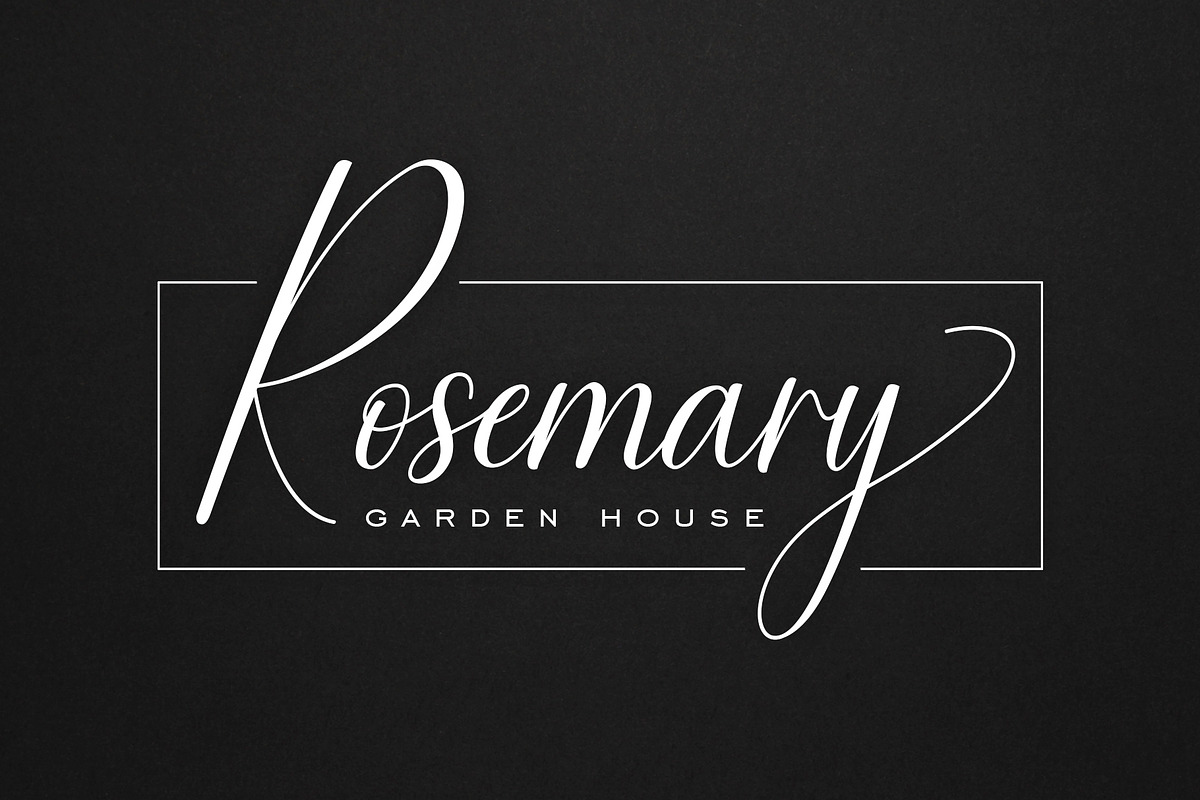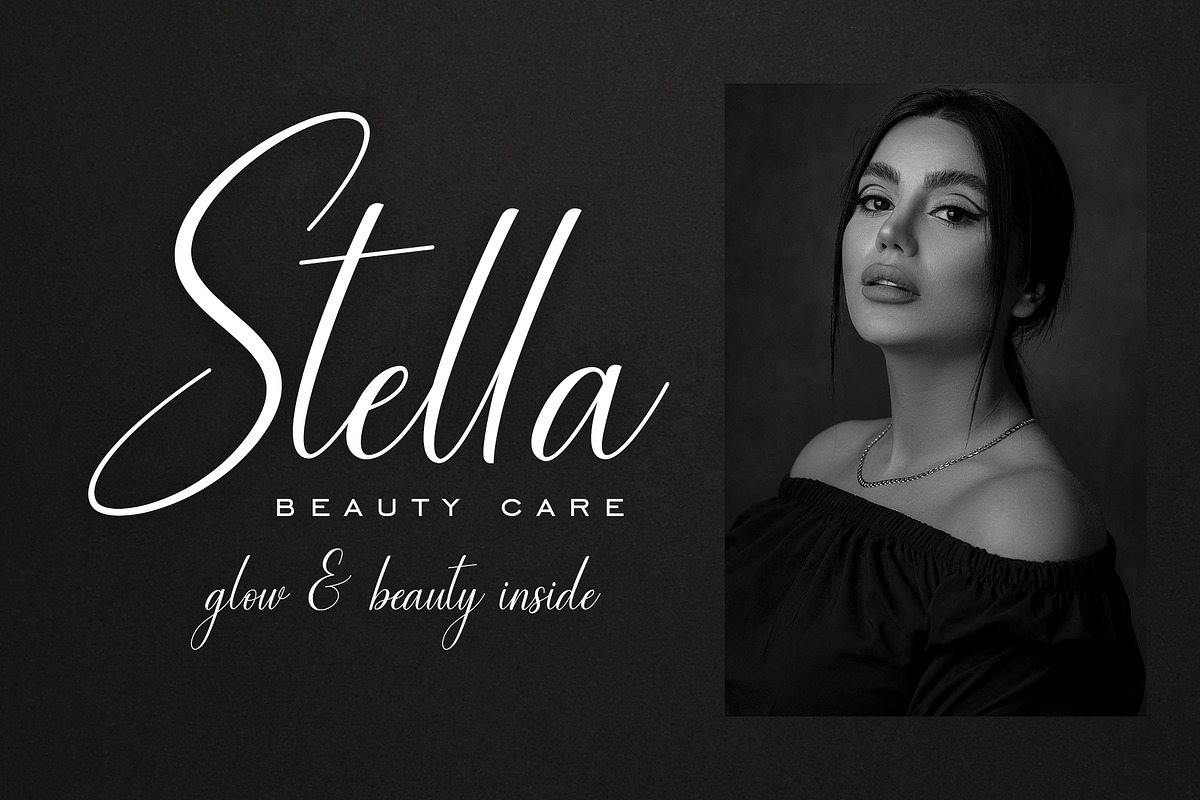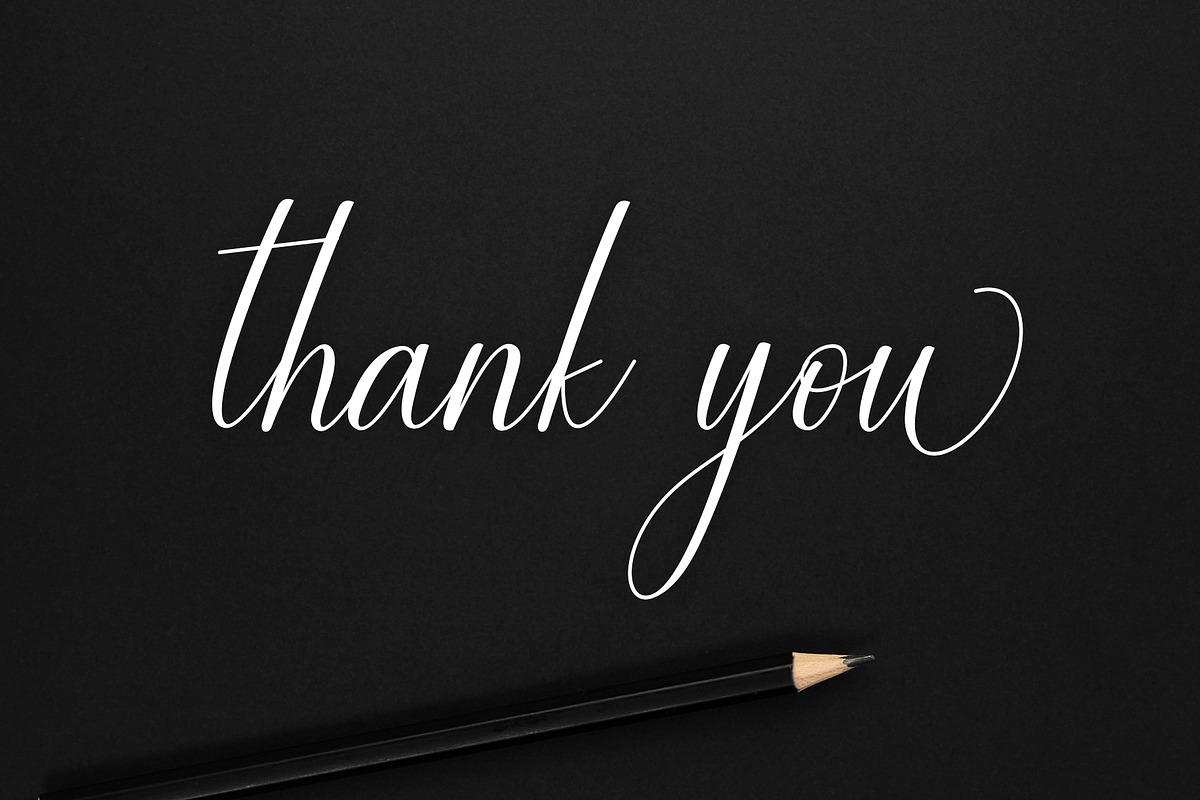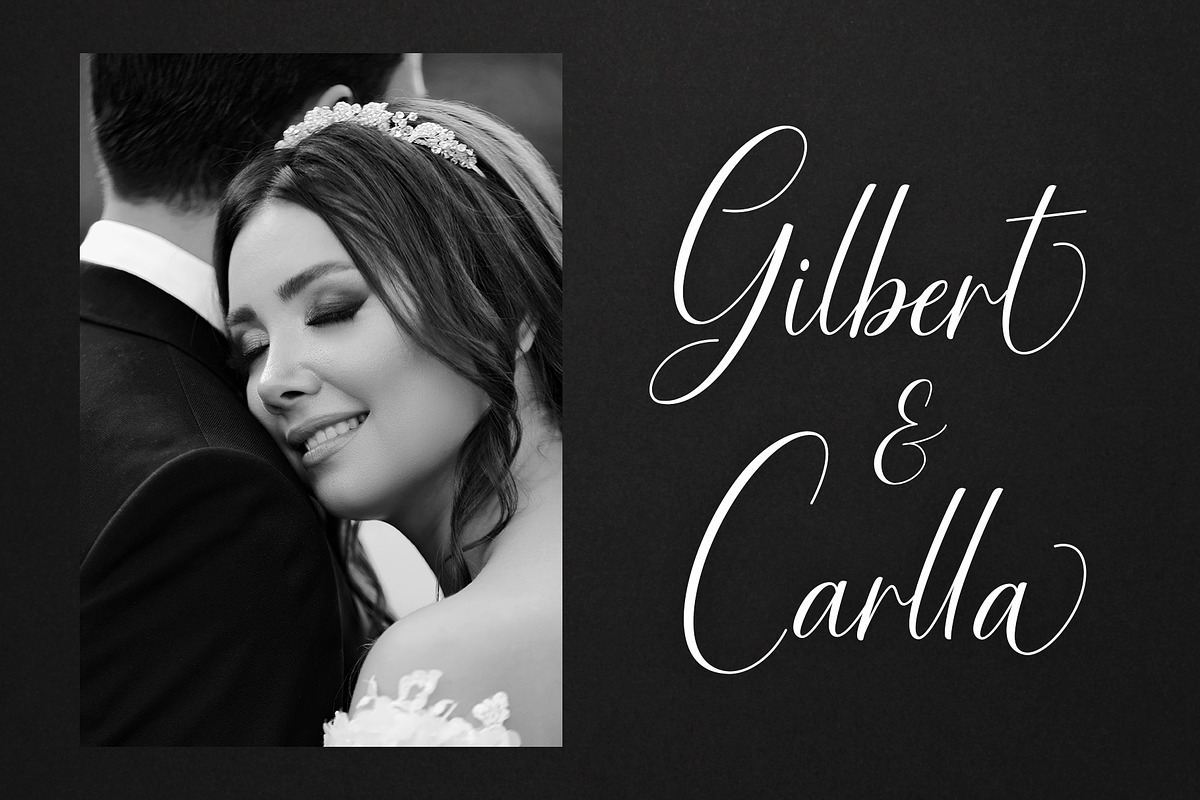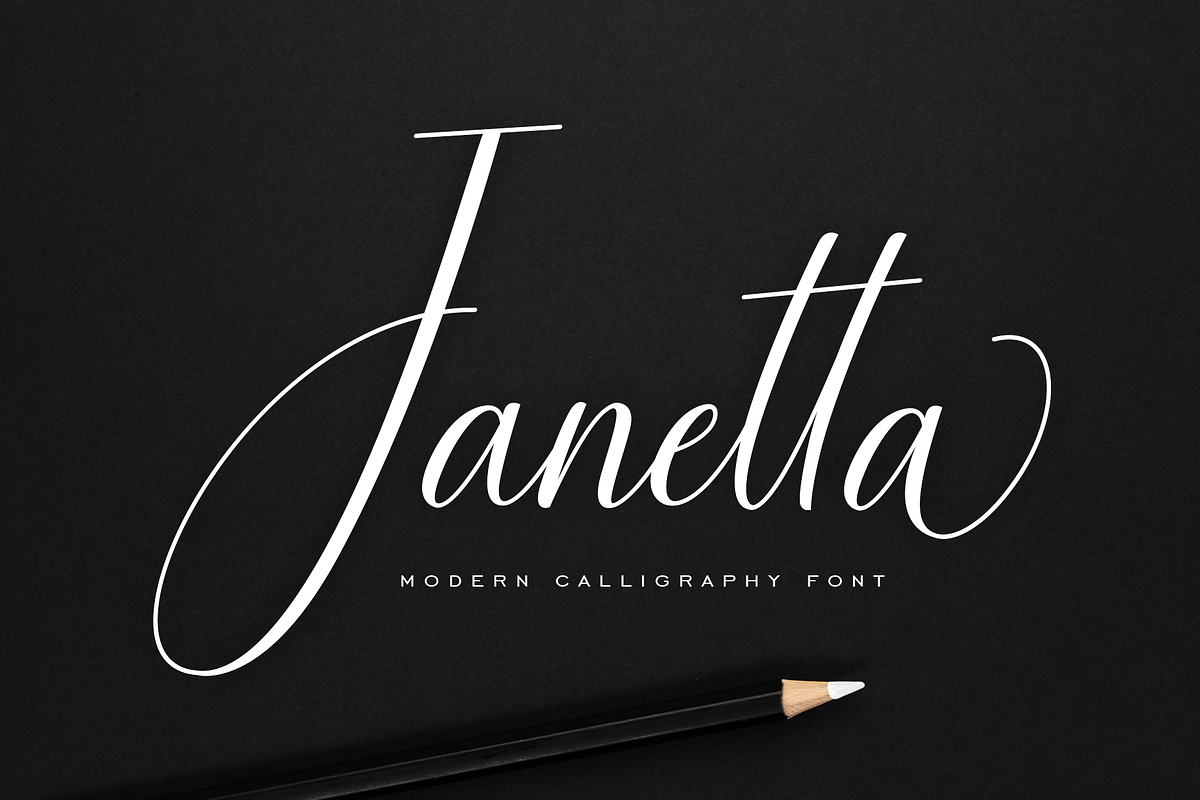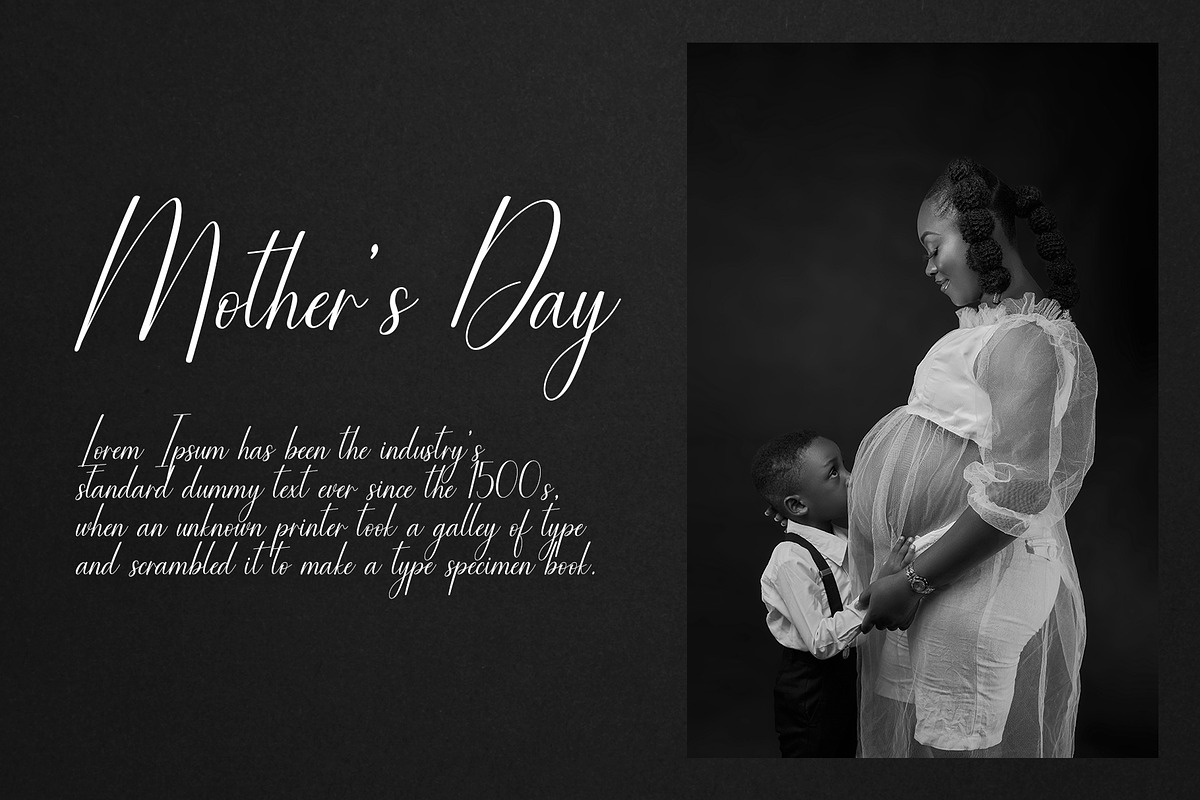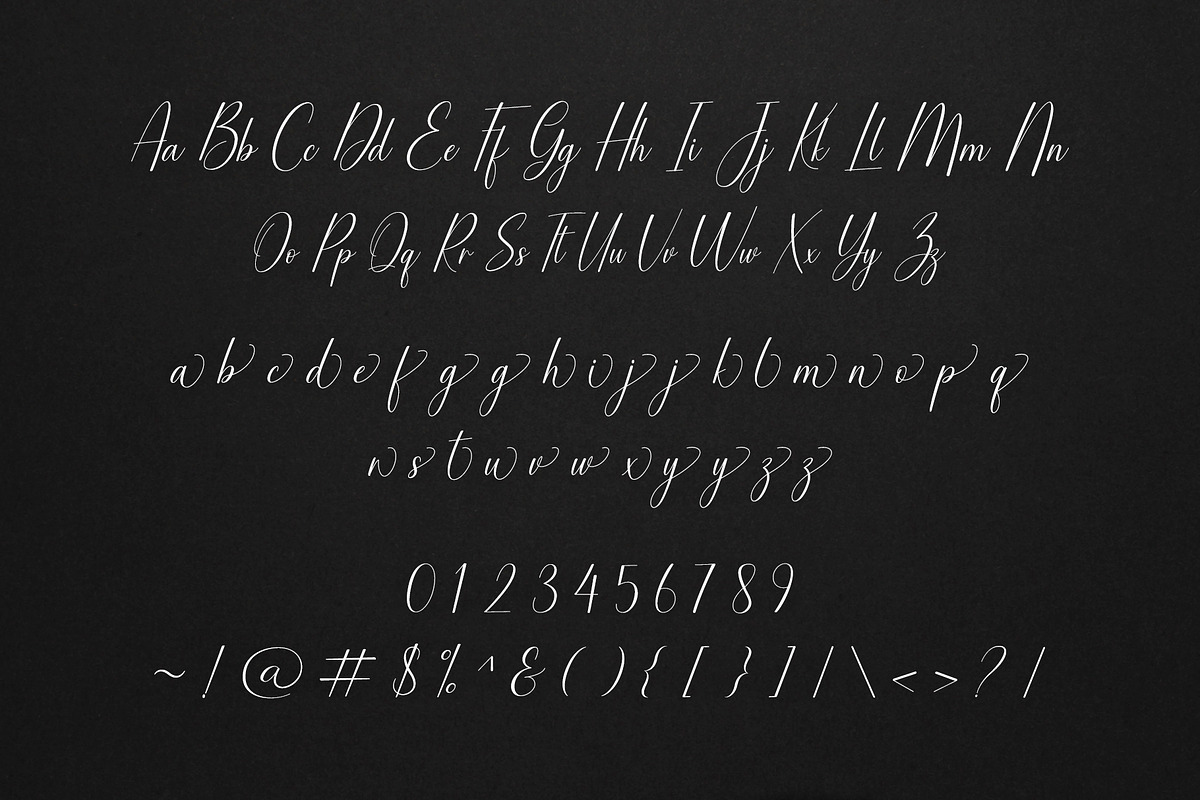
Janetta
Janetta is a soft and luxurious modern calligraphy font, perfect for projects that require an elegant and luxurious feel with soft lines. In your hands everything will be great!